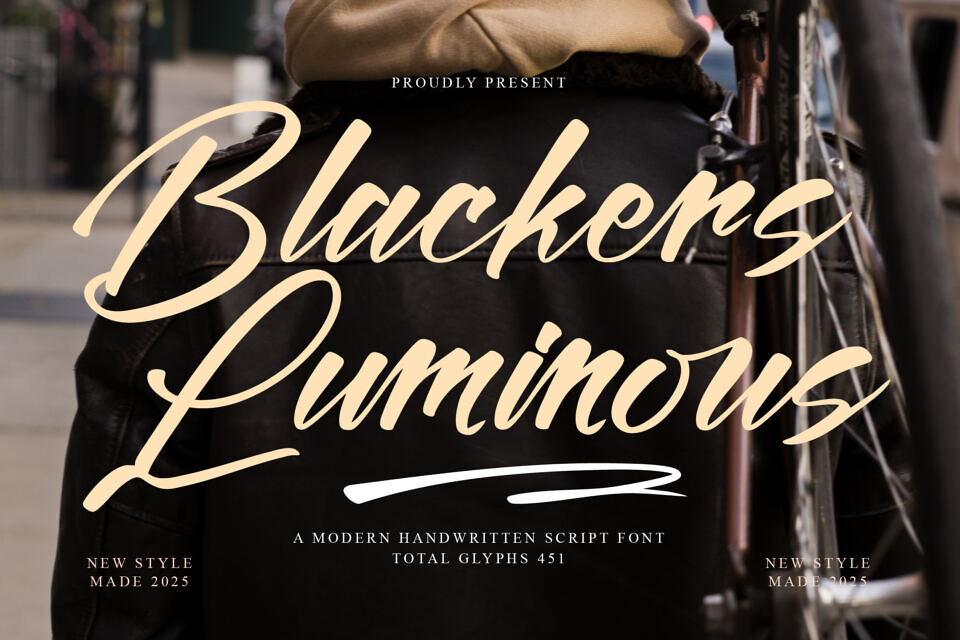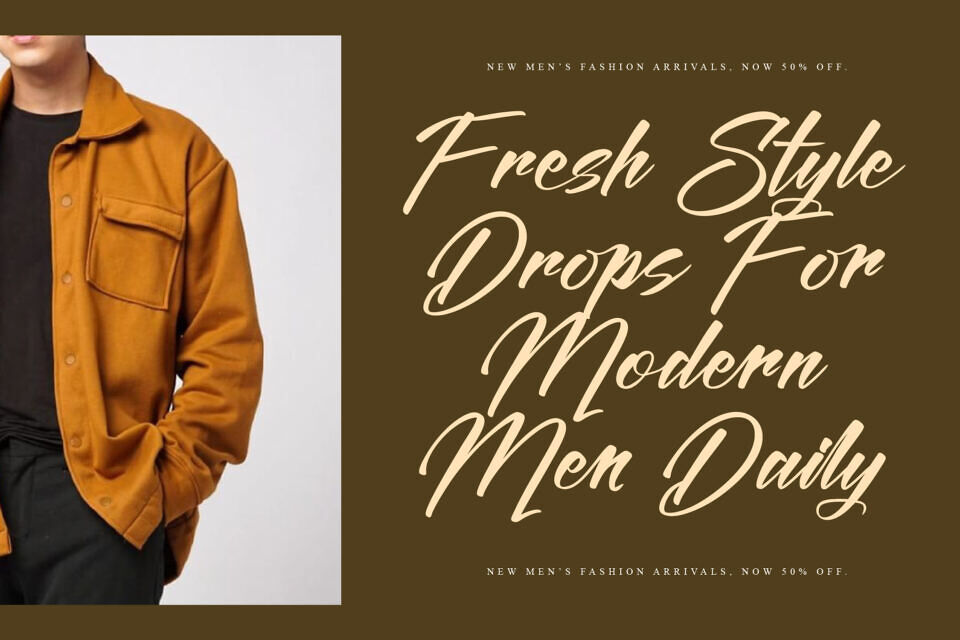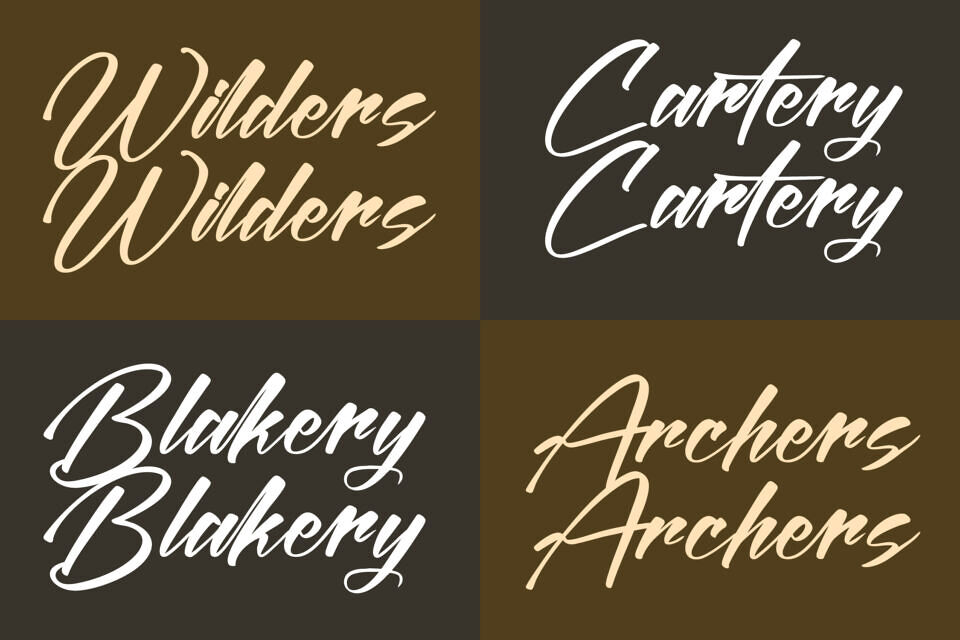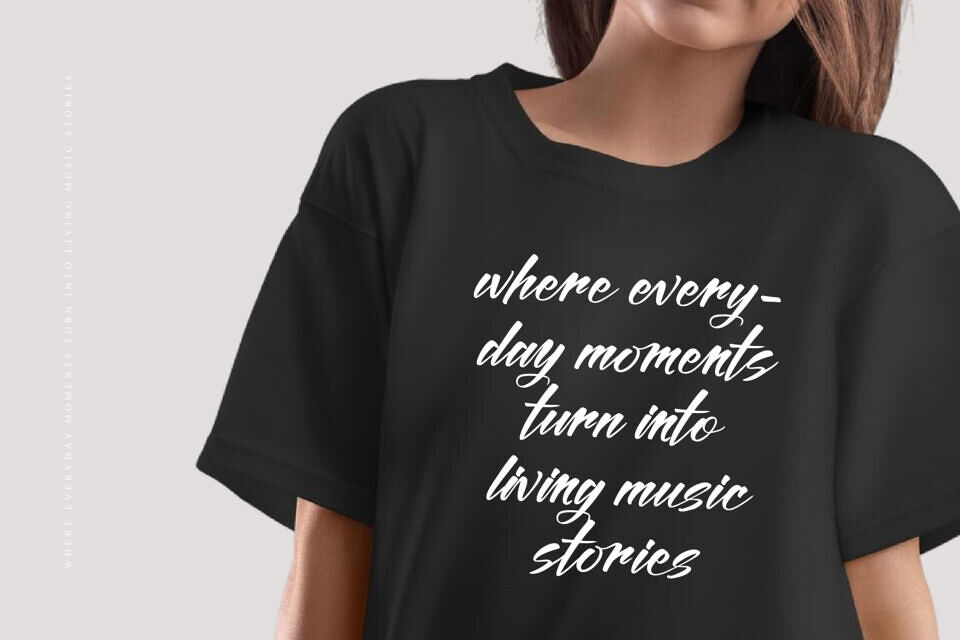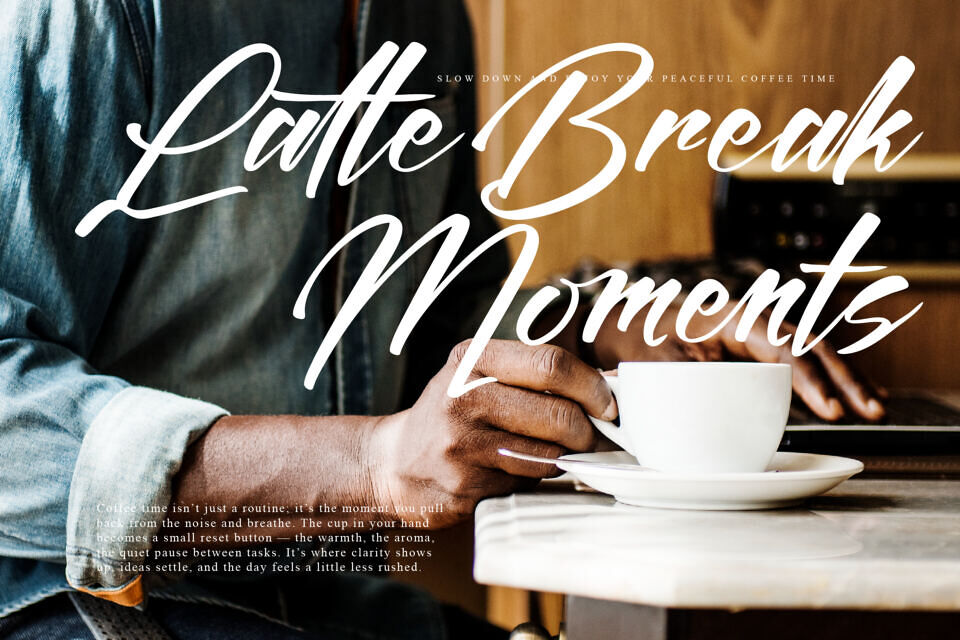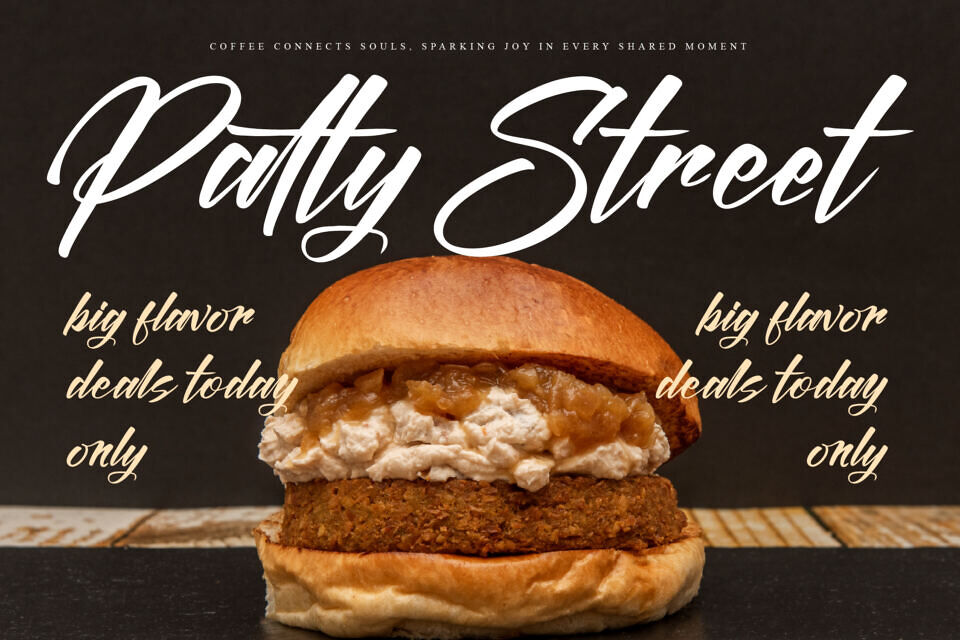
Blackers Luminous Font
Blackers Luminous is a modern handwritten script font designed to capture confidence, creativity, and timeless sophistication. Featuring bold flowing strokes, natural handwritten movement, and carefully crafted letterforms, this typeface delivers a distinctive visual identity that stands out across both print and digital media.
Whether used for luxury logos, product packaging, fashion campaigns, or creative advertising, Blackers Luminous transforms simple words into memorable visual experiences that communicate style, personality, and professionalism.